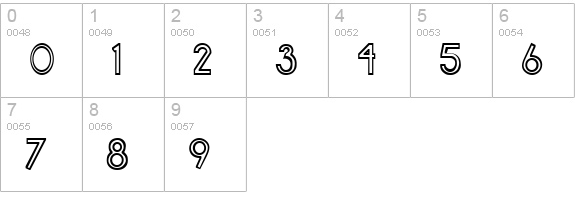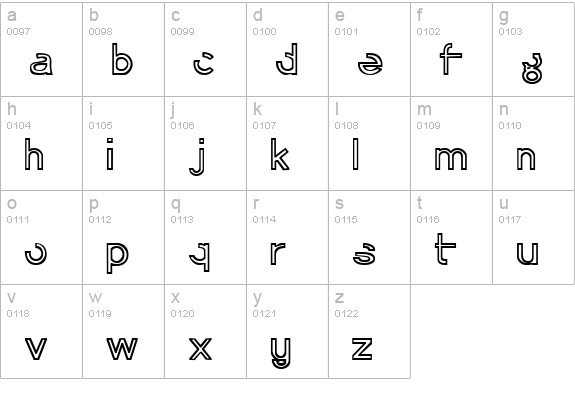
Erasure Regular is the standard, neutral variant in the Erasure typeface family \xE2\x80\x94 well suited to general body text, paragraphs, and standard typographic work.
Erasure Regular font is a versatile and modern typeface perfect for a wide range of design projects. With its clean lines and elegant curves, Erasure Regular exudes a sense of sophistication and professionalism. Whether you're designing a logo, creating branding materials, or working on a website, this font is sure to make a statement. What's even better is that Erasure Regular is available for free download at FontsMarket.com. You can easily access this stylish font and use it in your projects without any cost. Don't miss out on the opportunity to enhance your designs with the sleek and contemporary look of Erasure Regular font. Download it now and elevate your design game to the next level.